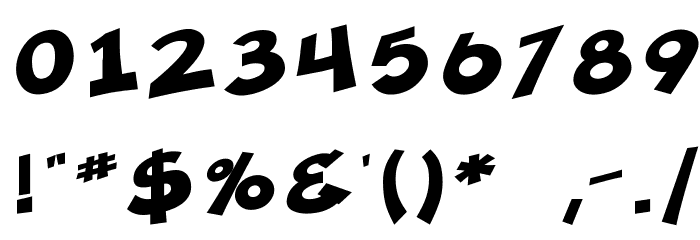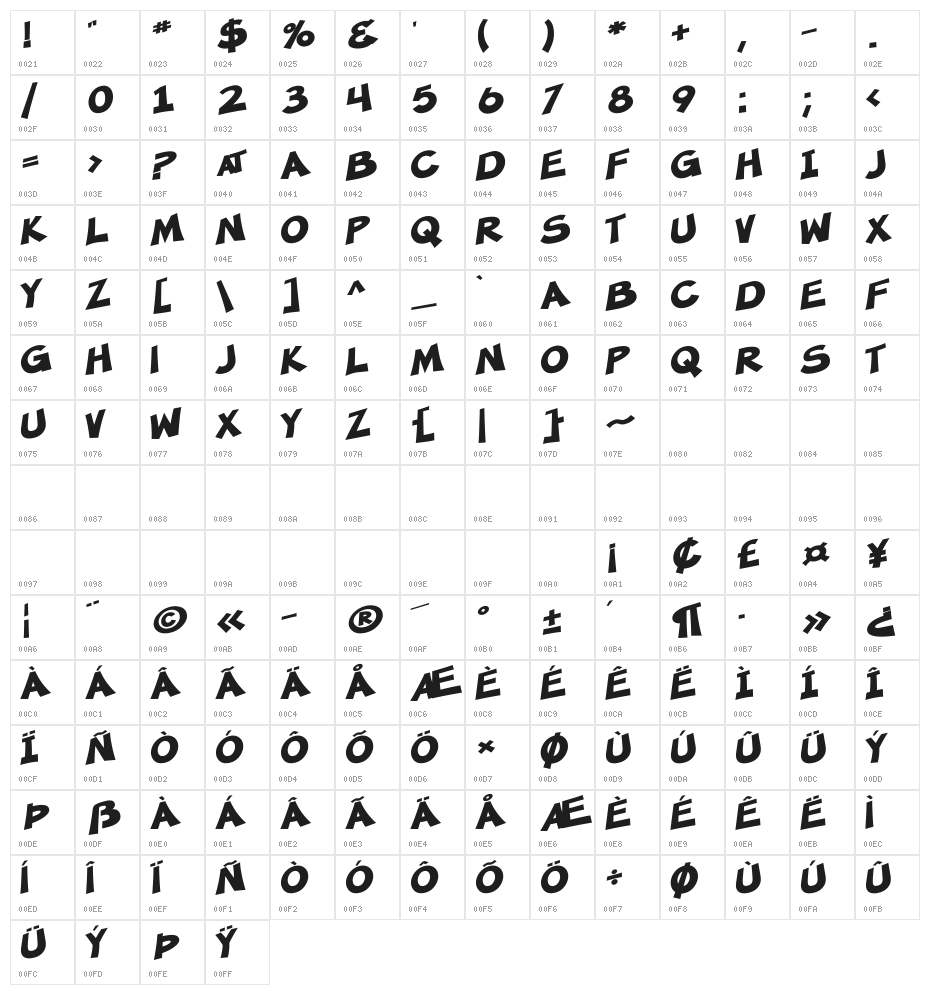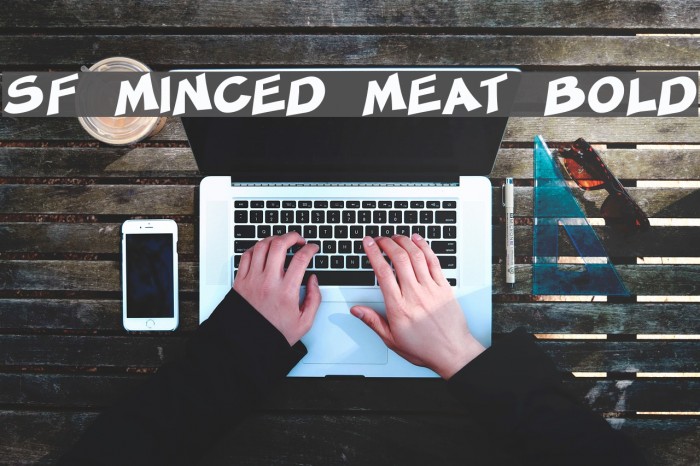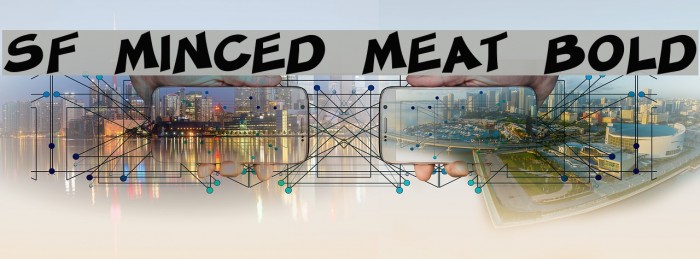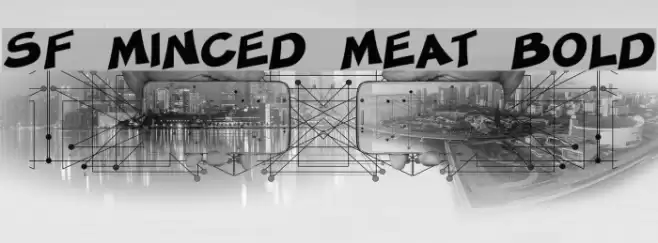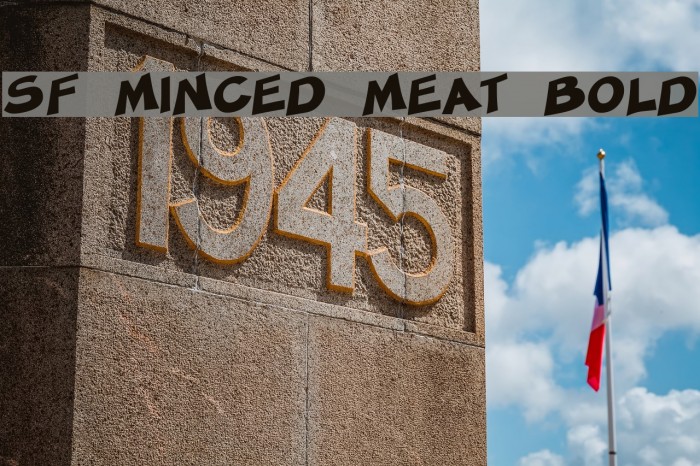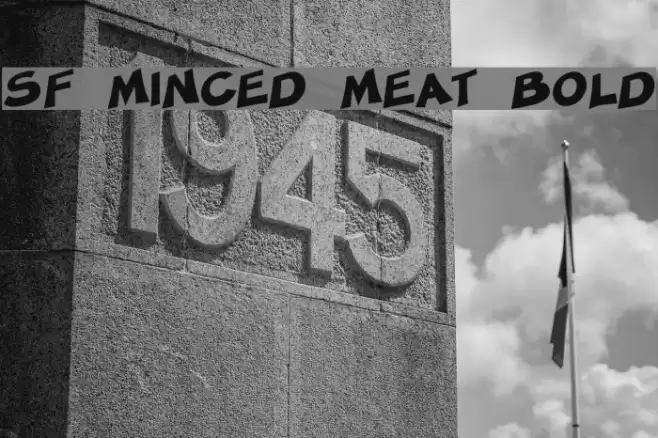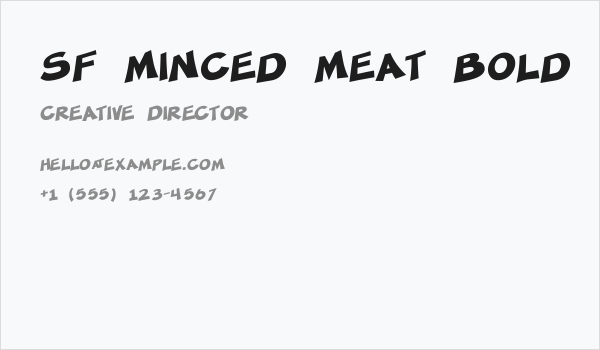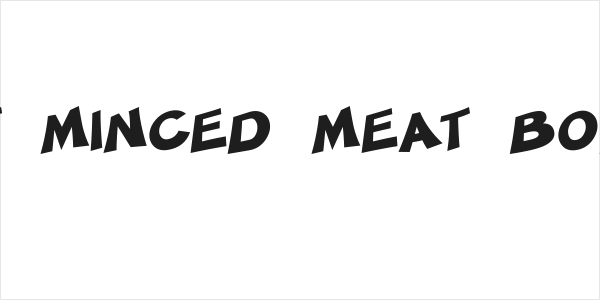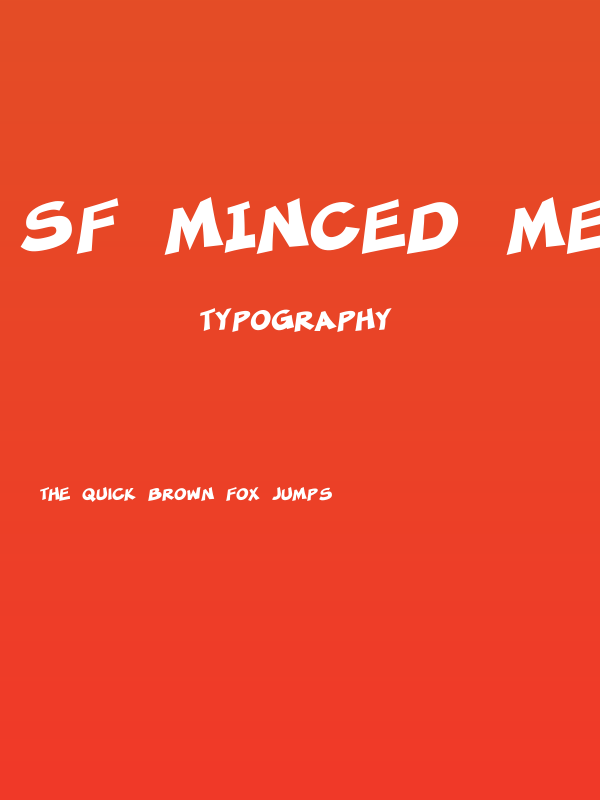
SF Minced Meat Bold Font
SF Minced Meat Bold Description
This bold and dynamic font features a playful and energetic style, characterized by its thick, angular strokes and slightly irregular shapes. The letters have a distinct forward slant, giving a sense of motion and excitement. The uppercase and lowercase characters maintain a consistent weight, ensuring readability while adding a touch of whimsy. The numbers and special characters follow the same bold and lively design, making this font suitable for attention-grabbing headlines and creative projects.
| Overall Style | Playful, Energetic |
| Proposed Projects | Ideal for posters, comic books, children's books, and branding that requires a fun and energetic vibe. |